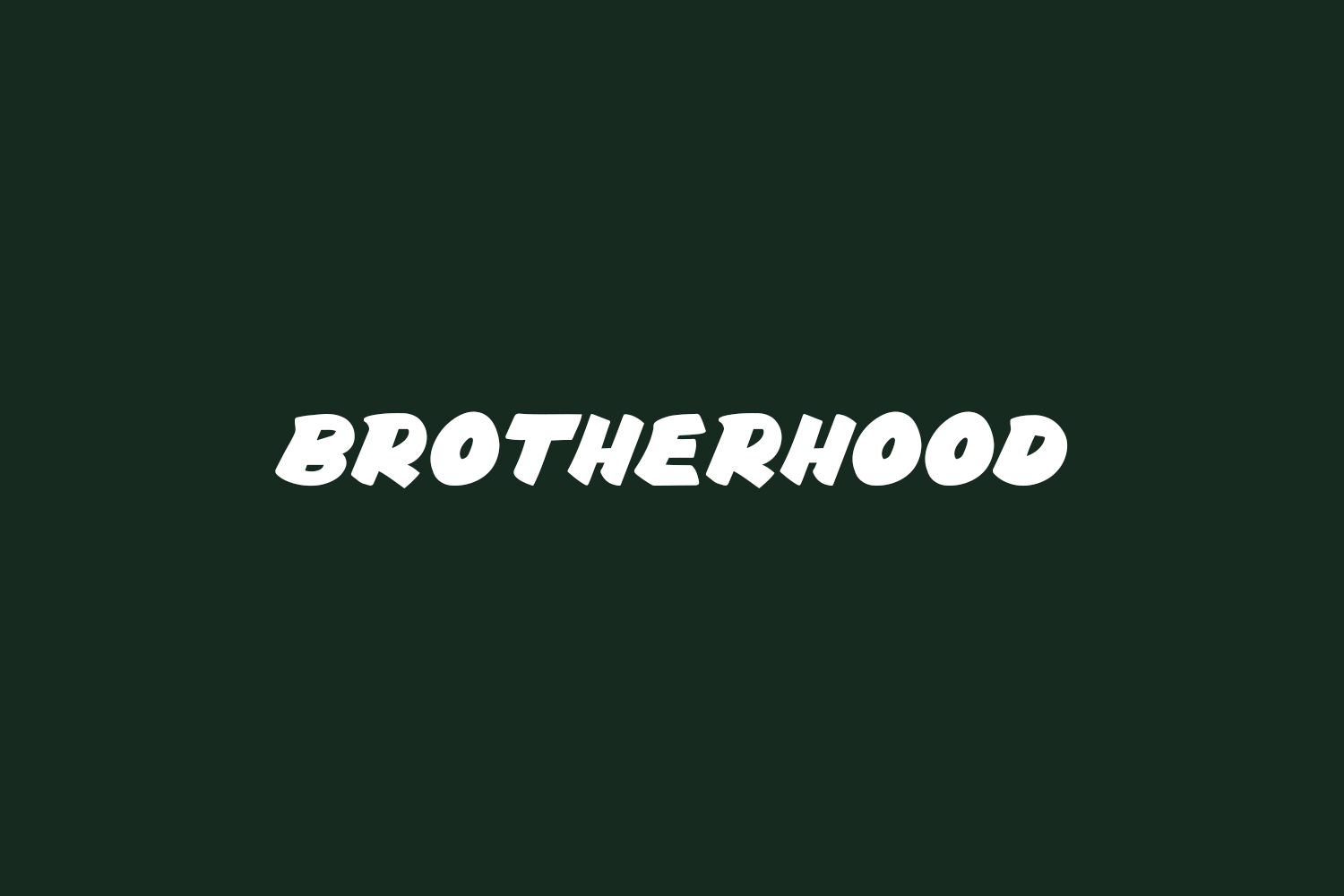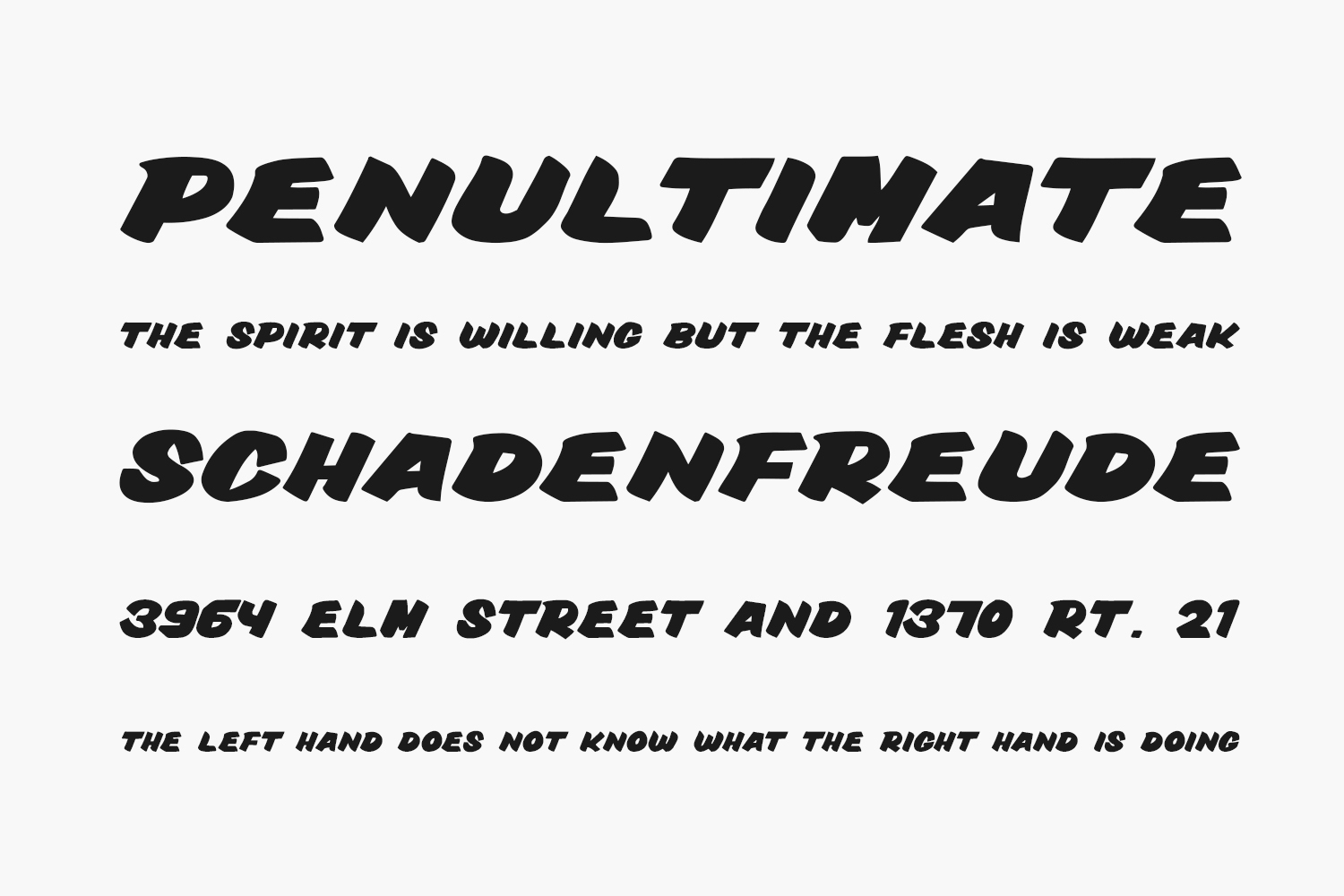
Brotherhood Free Font is a bold and thick lettered display font. It will look stunning on any poster flyer or print. Brotherhood Free Font was designed by Tigadestd and is free for personal use only. Please purchase the full version for commercial use.